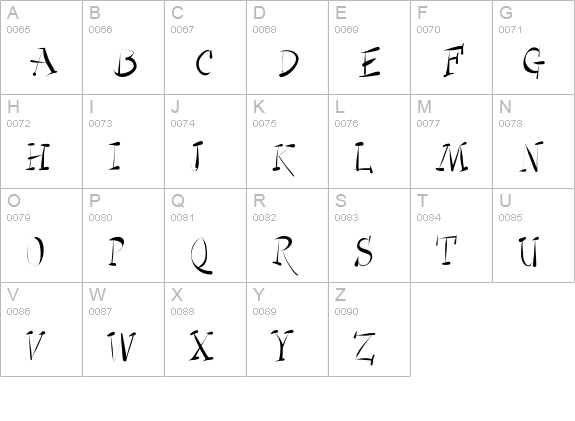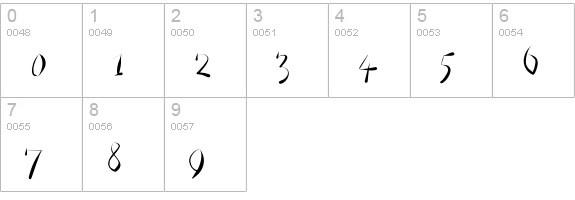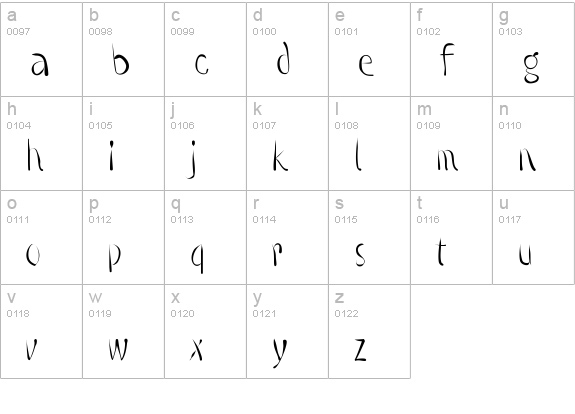
Quill-Light Font Details
Quill-Light is a refined, elegant variant in the Quill typeface family \xE2\x80\x94 well suited to elegant body text, refined sub-headings, and luxury branding.
Introducing Quill-Light, a mesmerizing font that will bring elegance and sophistication to any project. With its delicate and graceful strokes, Quill-Light captures the essence of calligraphy with a modern twist. This font is perfect for adding a touch of class to wedding invitations, logos, branding materials, and so much more. But what sets Quill-Light apart is not just its beauty, but also its accessibility. We believe that everyone should have access to high-quality fonts, which is why Quill-Light is available for free. Yes, you read that right - absolutely free! You can easily download Quill-Light from FontsMarket.com, a trusted source for all your font needs. With just a few clicks, this captivating font will be yours to use and enjoy in your creative endeavors. Whether you're a professional designer or a passionate DIY enthusiast, Quill-Light is a valuable addition to your font collection. Imagine the possibilities with Quill-Light. Create breathtaking designs that leave a lasting impression. Craft stunning wedding stationery that exudes romance and sophistication. Enhance your branding materials with a touch of elegance that sets you apart from the competition. The options are limitless. So, don't miss out on this amazing opportunity to elevate your designs with Quill-Light. Download it for free at FontsMarket.com and unlock a world of creativity. Embrace the beauty of calligraphy and let Quill-Light be your artistic companion.